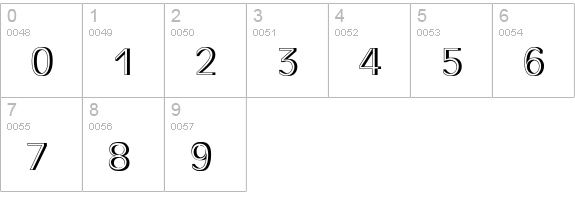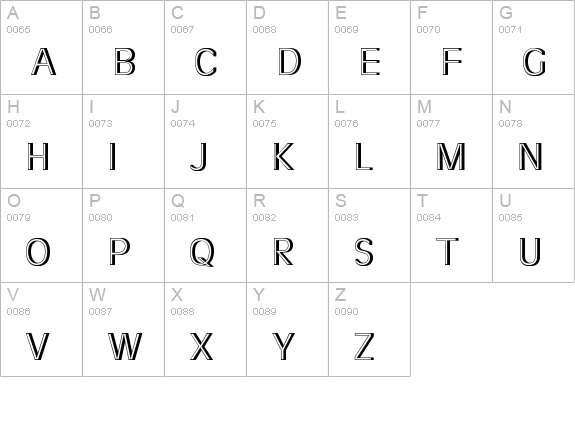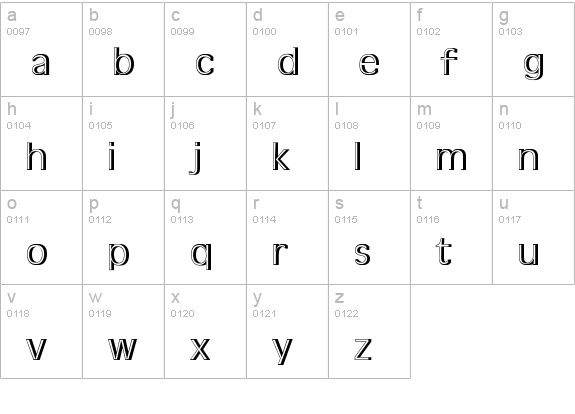
Antique Olive T Light Re1 Font Details
Antique Olive T Light Re1 is a refined, elegant variant in the Antique typeface family \xE2\x80\x94 well suited to elegant body text, refined sub-headings, and luxury branding.
Antique Olive T Light Re1 font is a timeless and elegant typeface that exudes sophistication and charm. Its delicate serifs and subtle curves make it a perfect choice for projects that require a touch of classic beauty. The font's light weight adds a sense of airiness and grace to any design. What makes Antique Olive T Light Re1 font even more appealing is that it is available for free download at FontsMarket.com. This means that you can easily access this exquisite typeface without any cost, making it a valuable addition to your font collection. Whether you're working on invitations, branding materials, or any other creative project, Antique Olive T Light Re1 font is sure to elevate your designs with its timeless appeal.